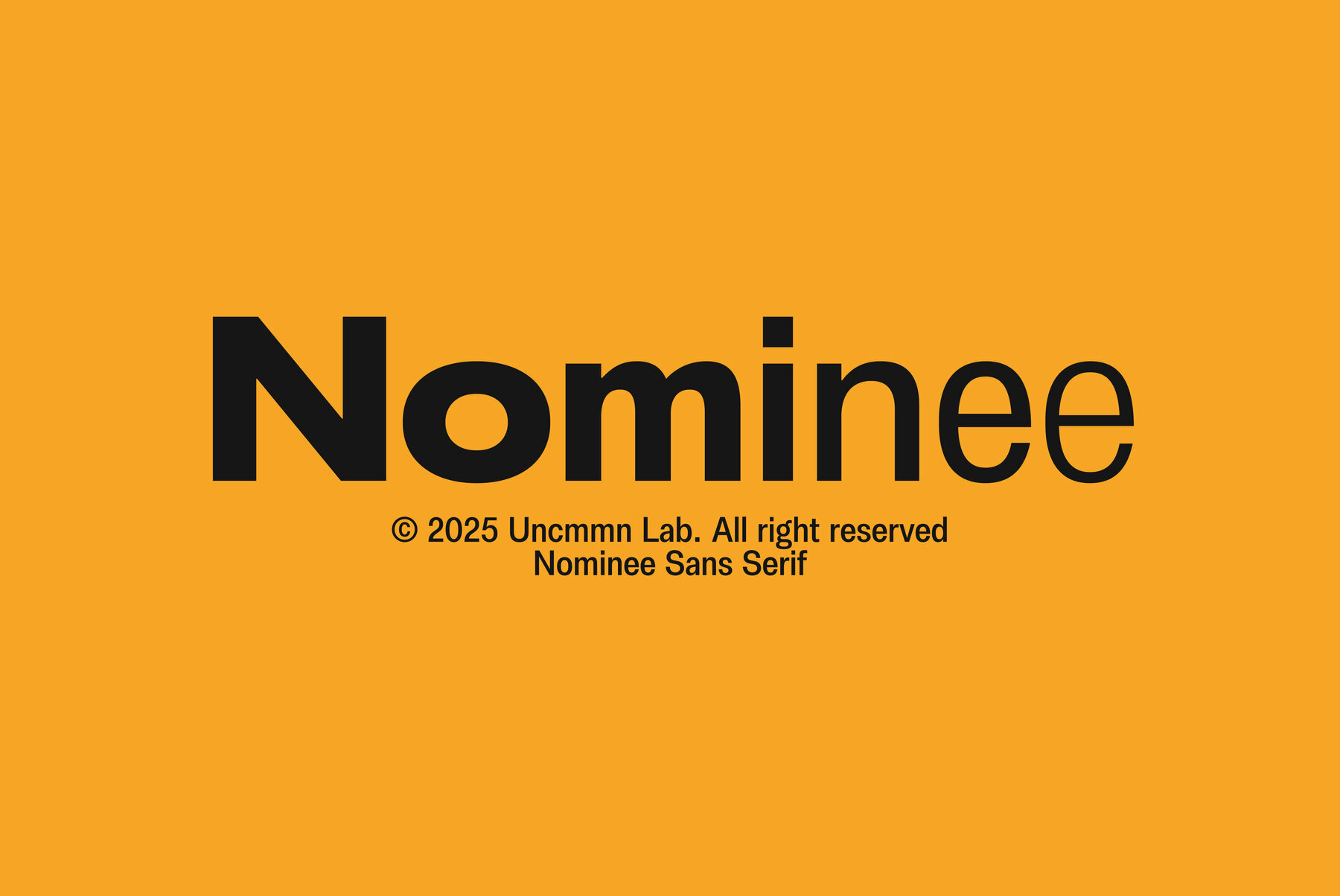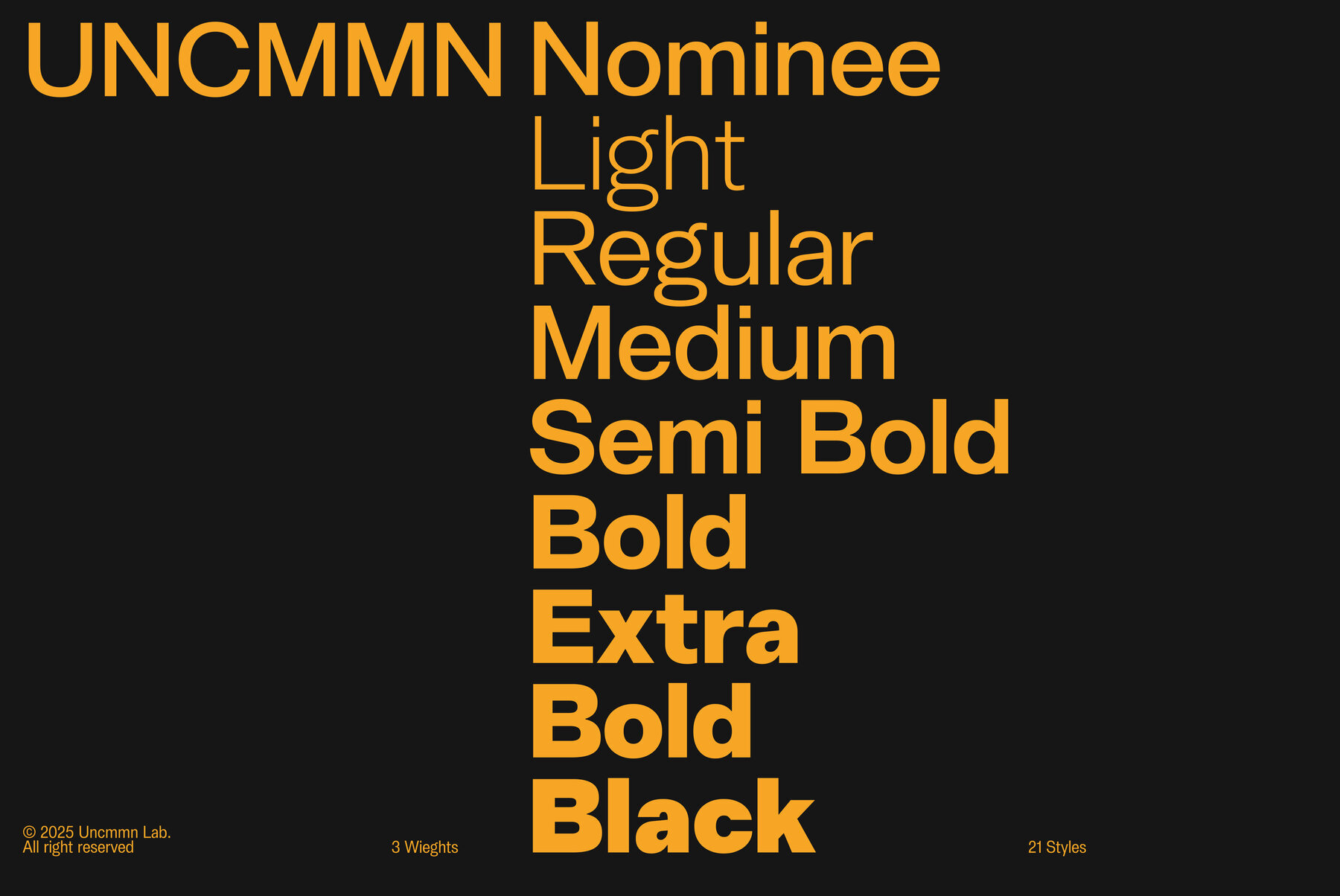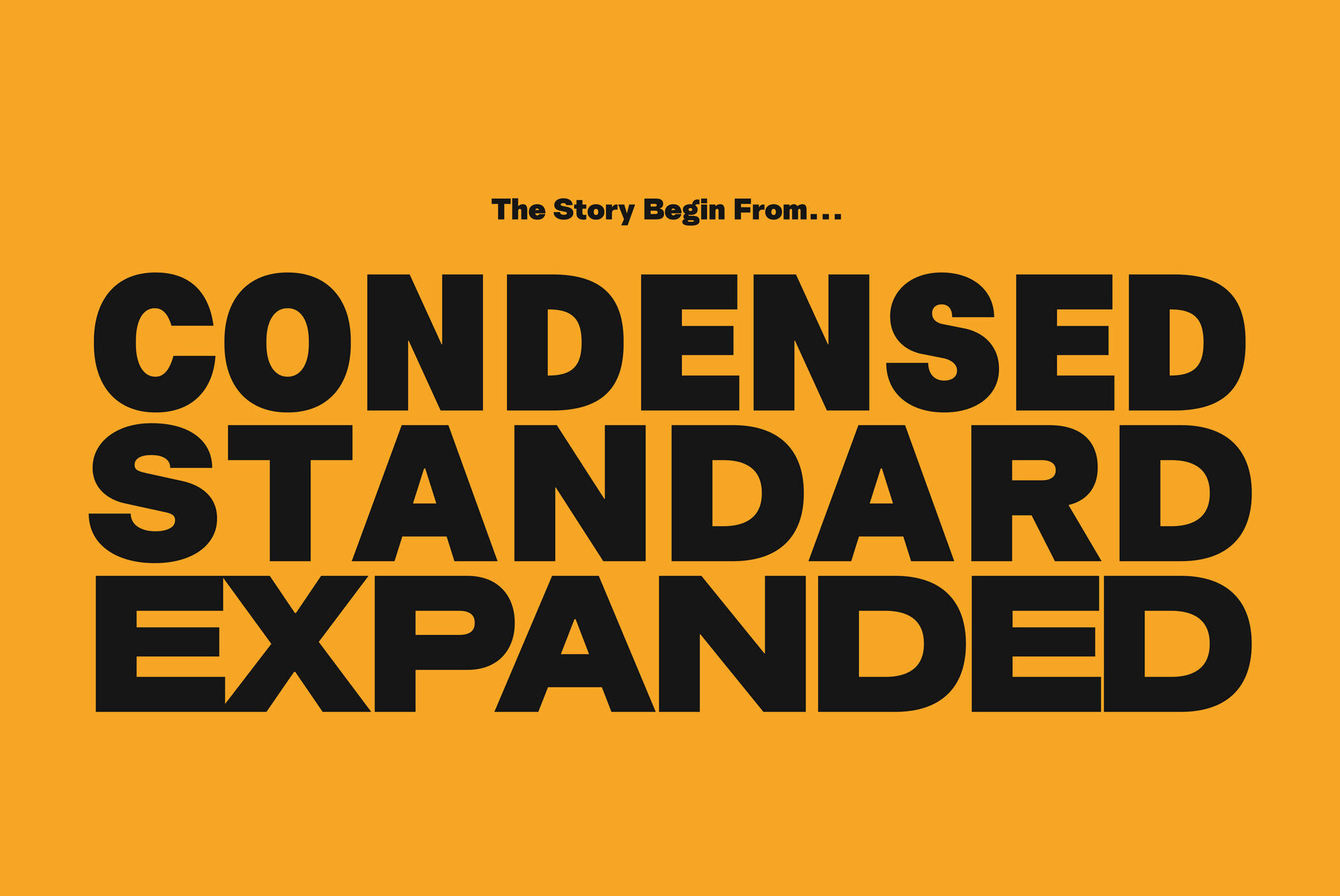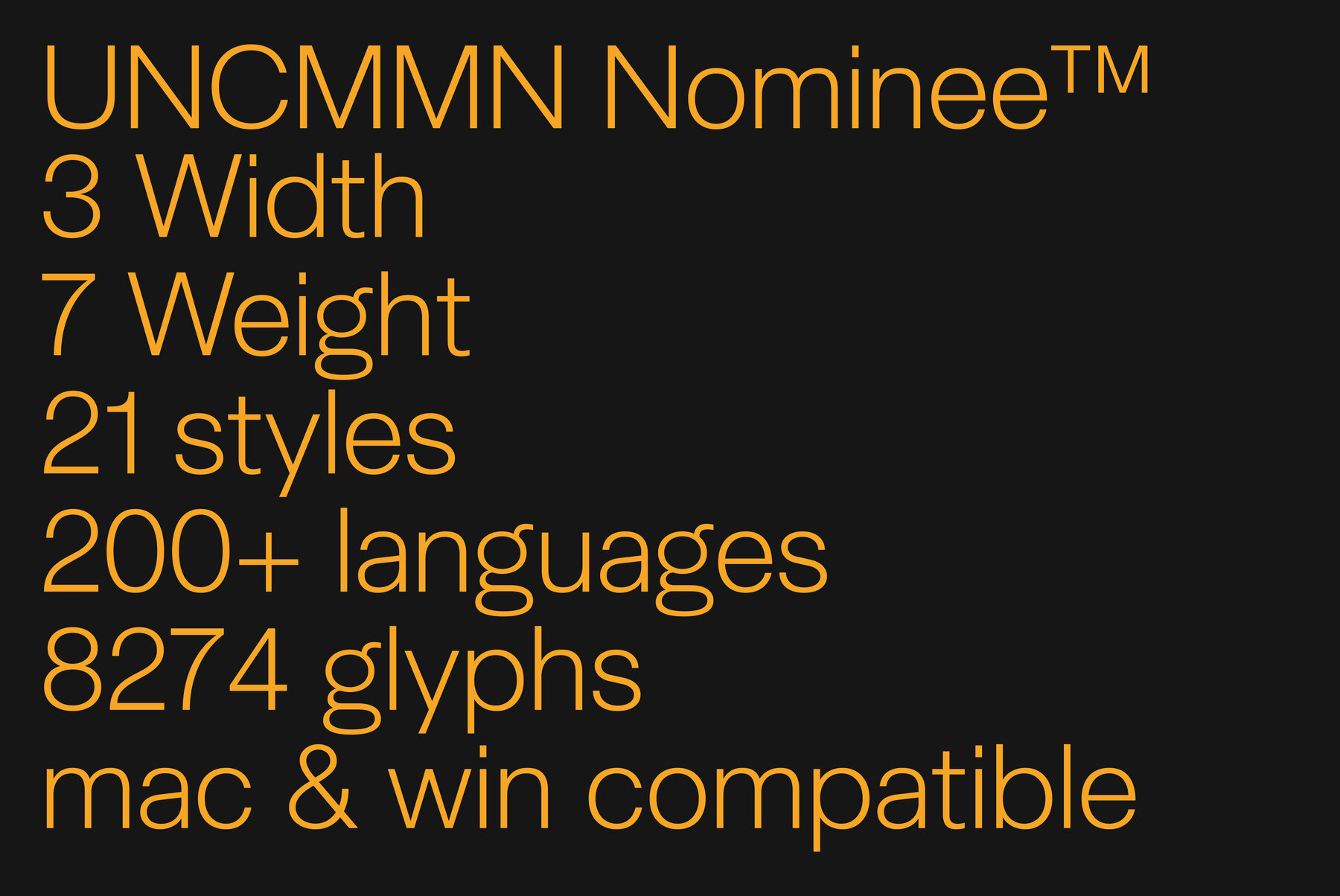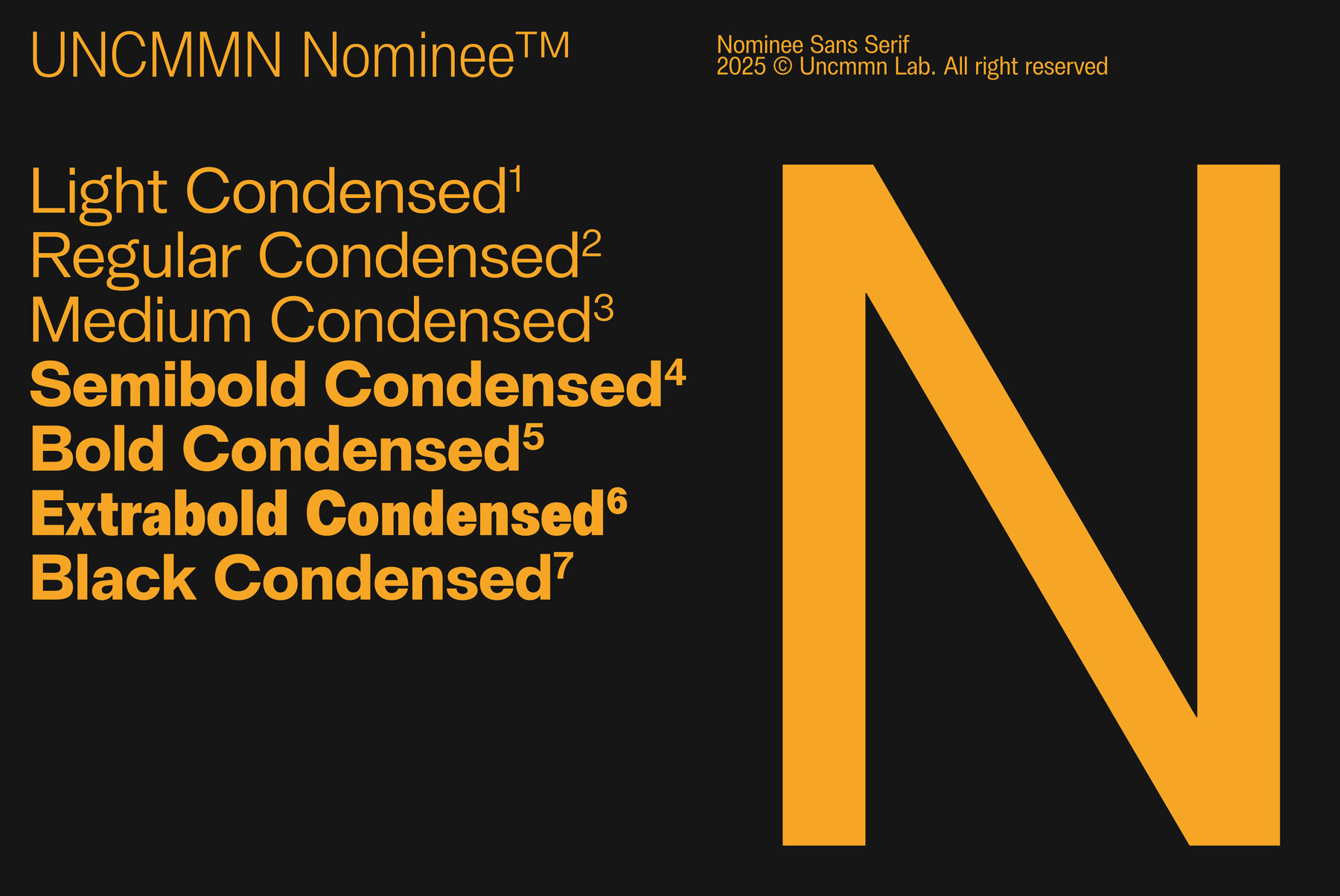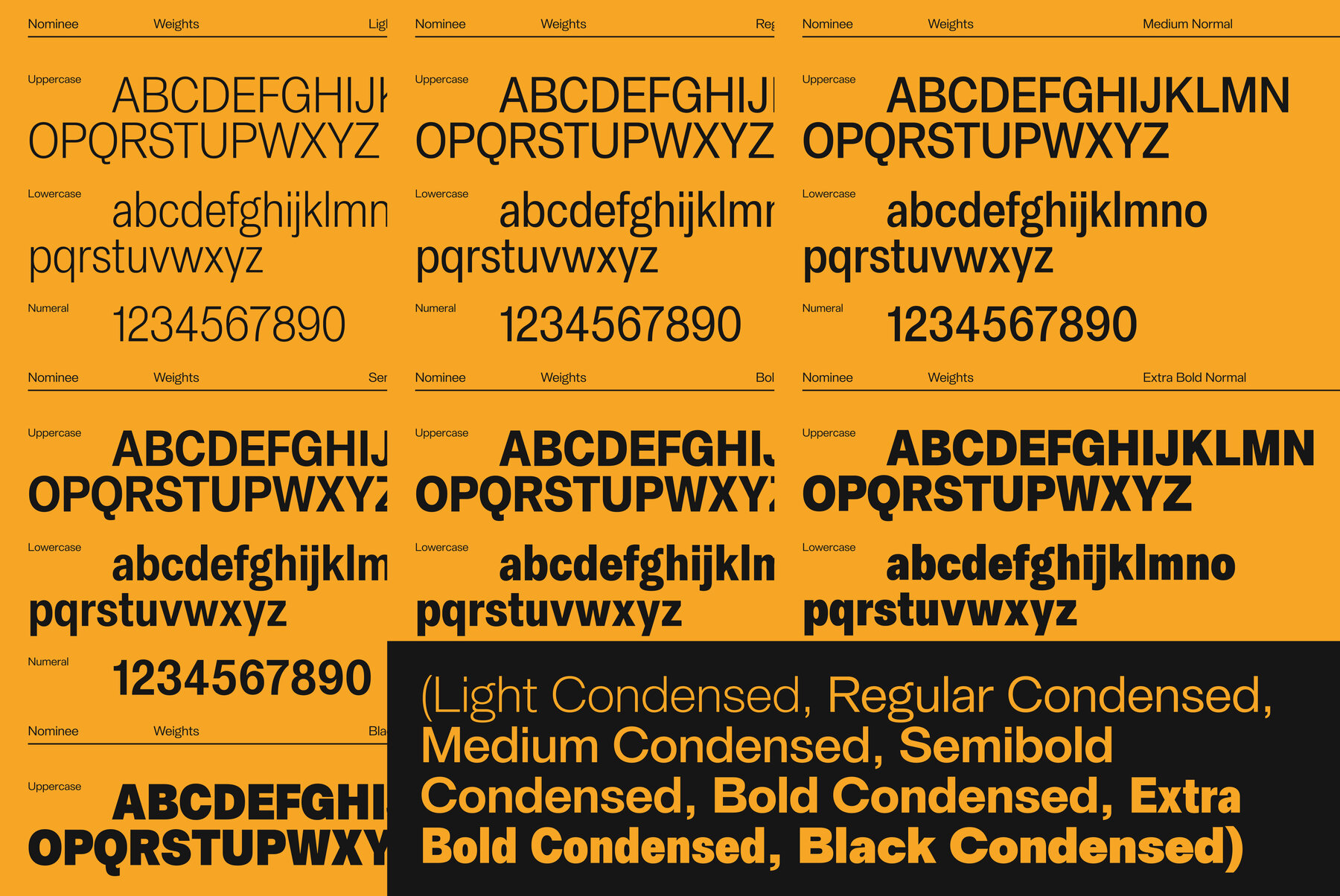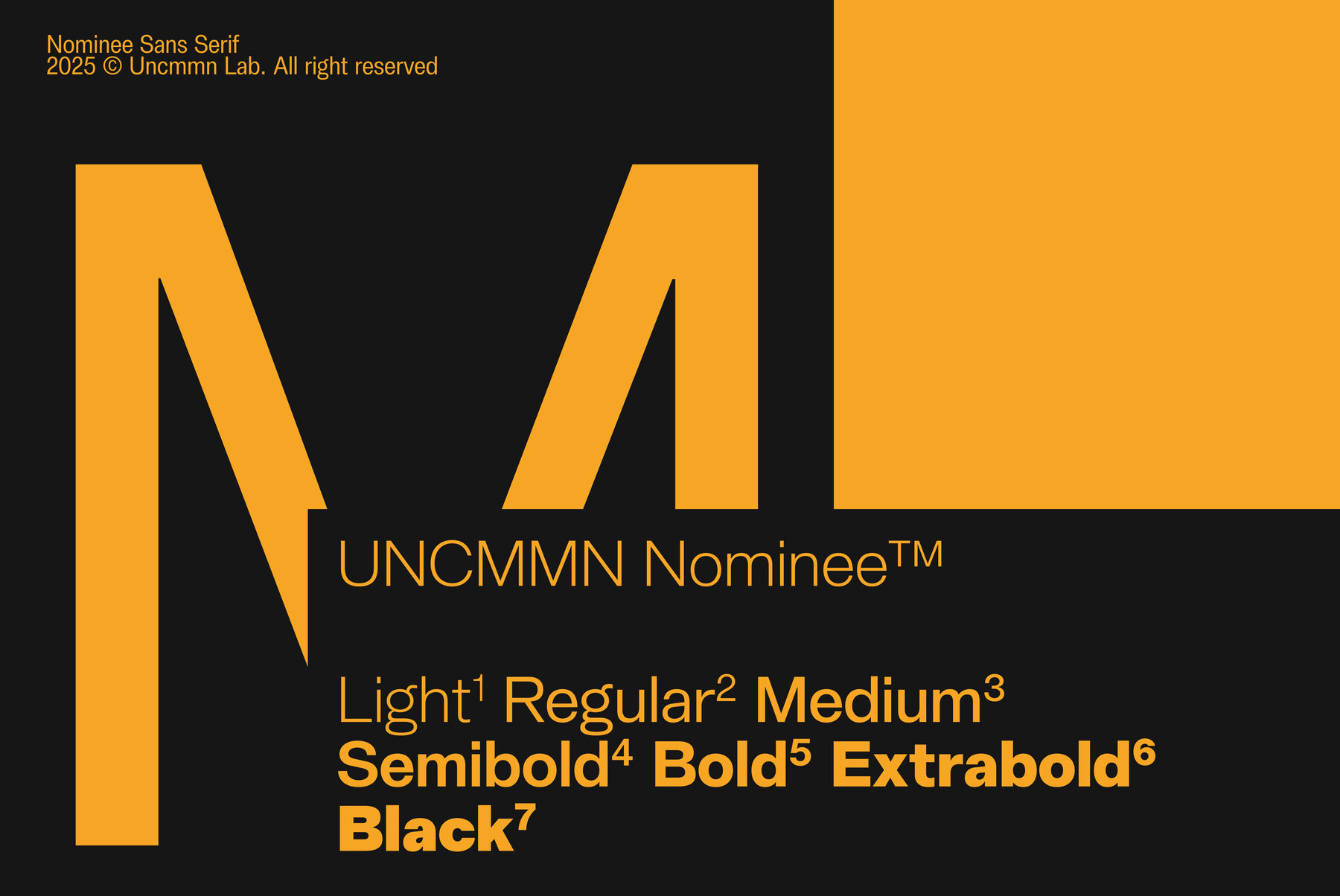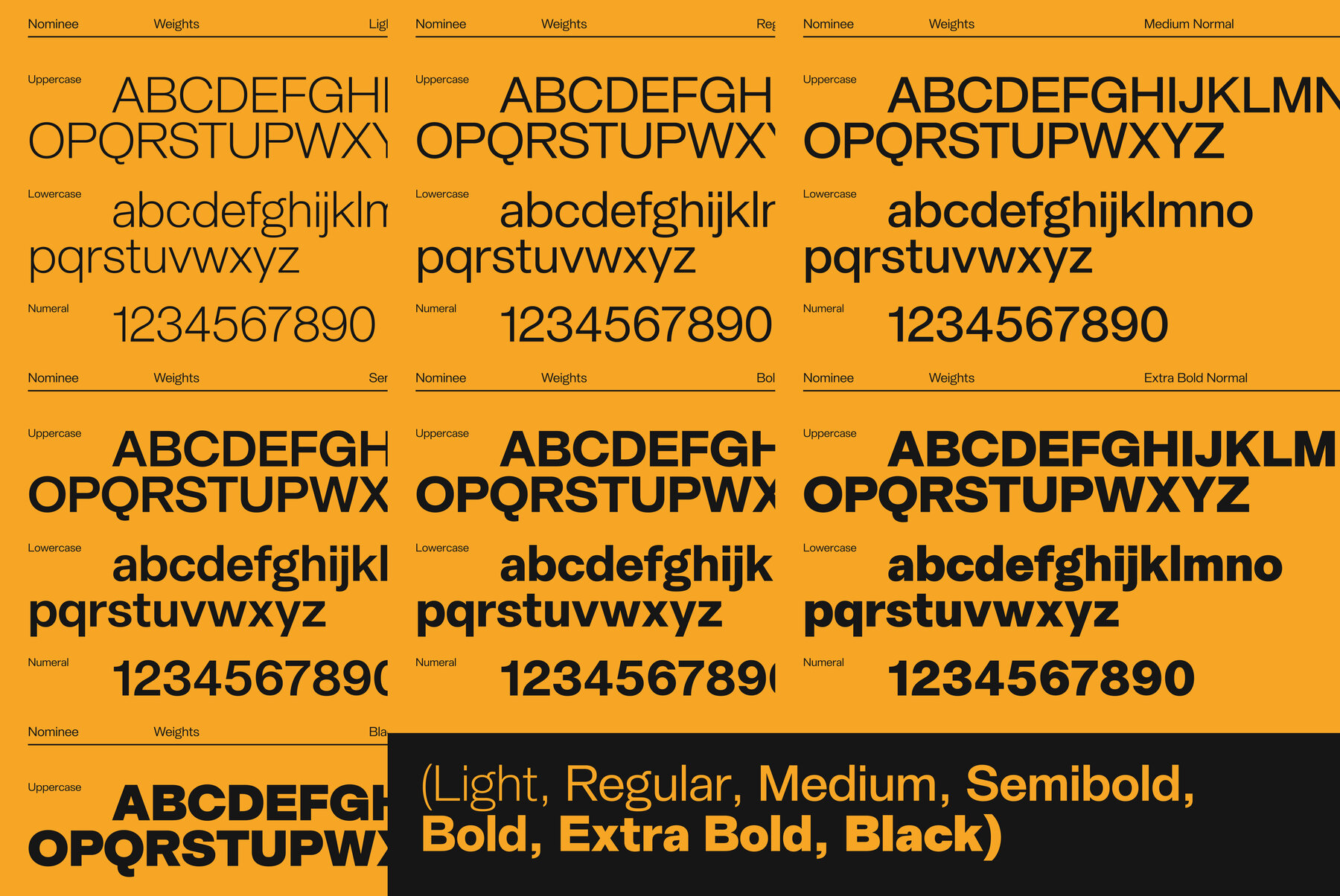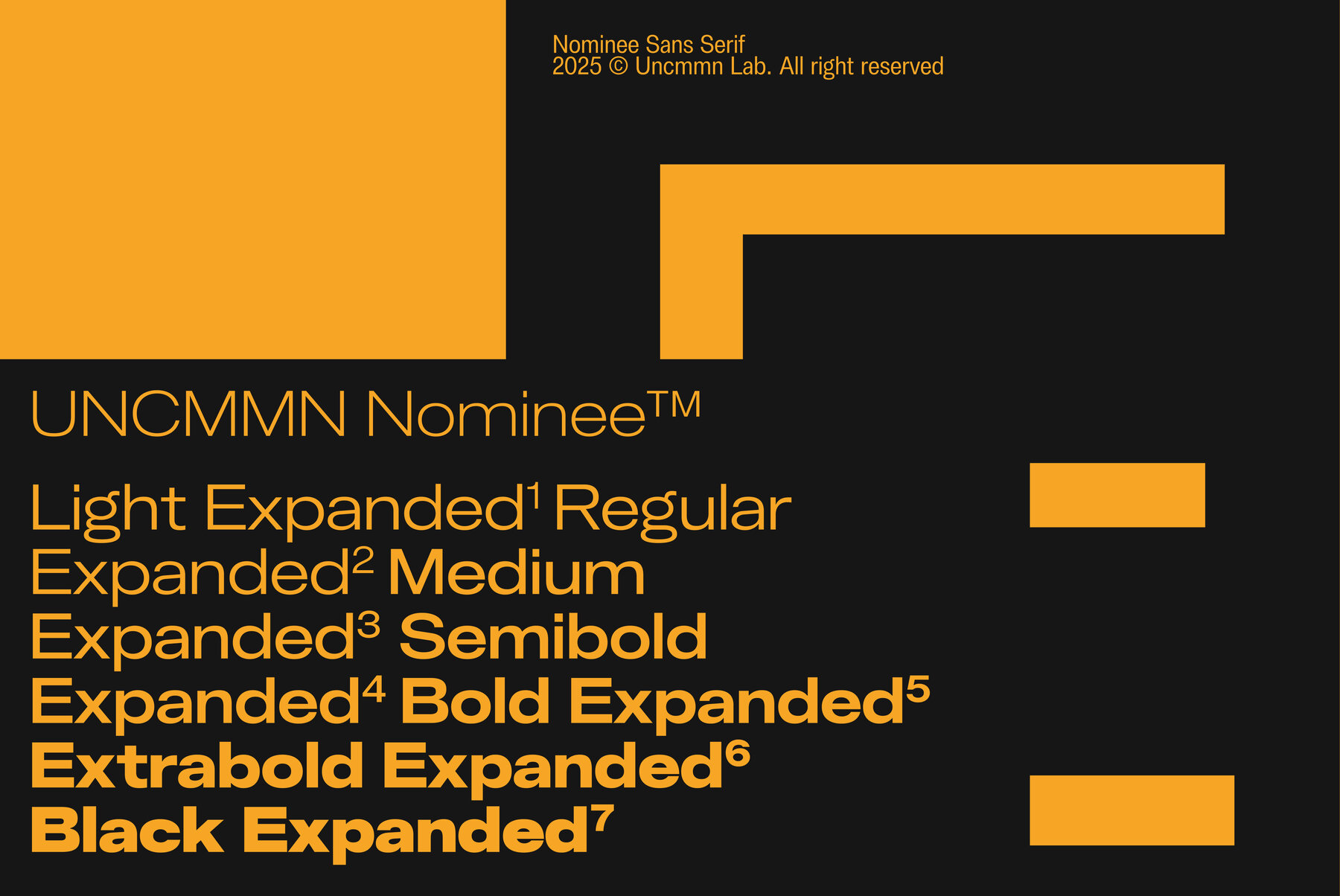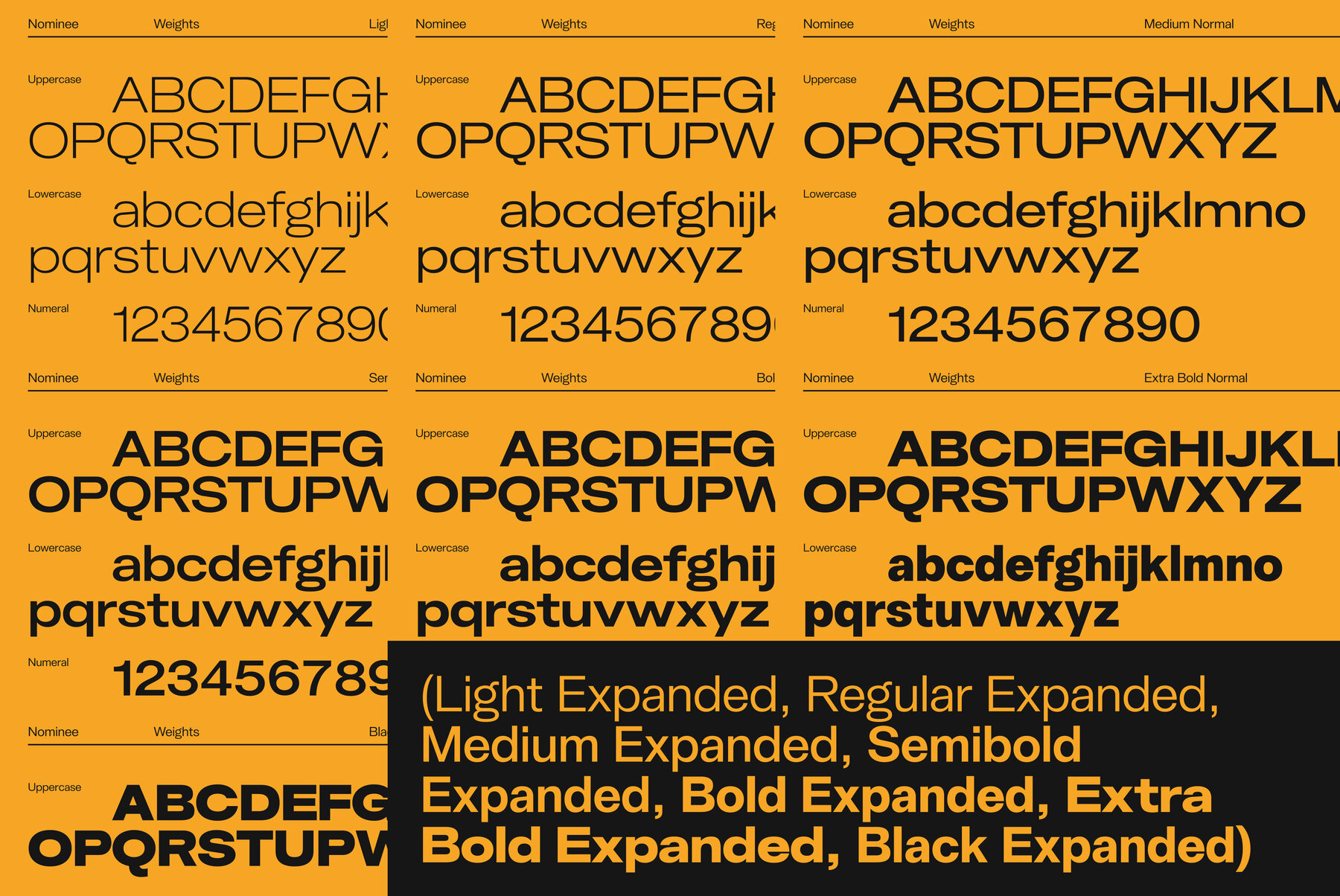
UNCMMN Nominee Font
The UNCMMN Nominee typeface is a sophisticated sans serif font that combines timeless elegance with contemporary minimalism. Characterized by its clean lines and generous spacing, Nominee embodies clarity and subtle geometric influences. This font is designed to deliver a calm, confident rhythm, making it the perfect choice for branding, editorial design, and visual identities aiming for both a modern and timeless aesthetic. Features:UNCMMN Nominee: Refined Elegance in Sans Serif